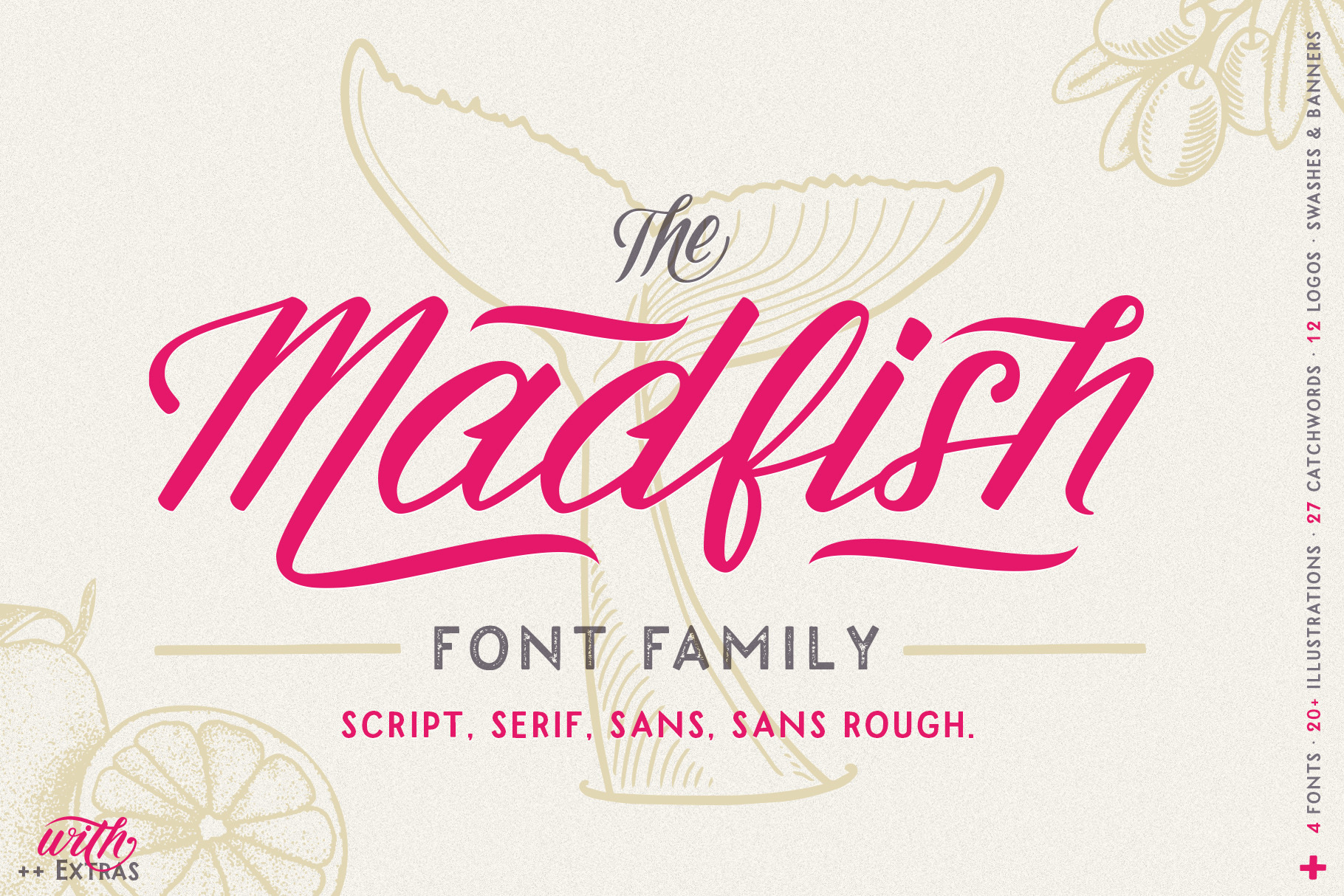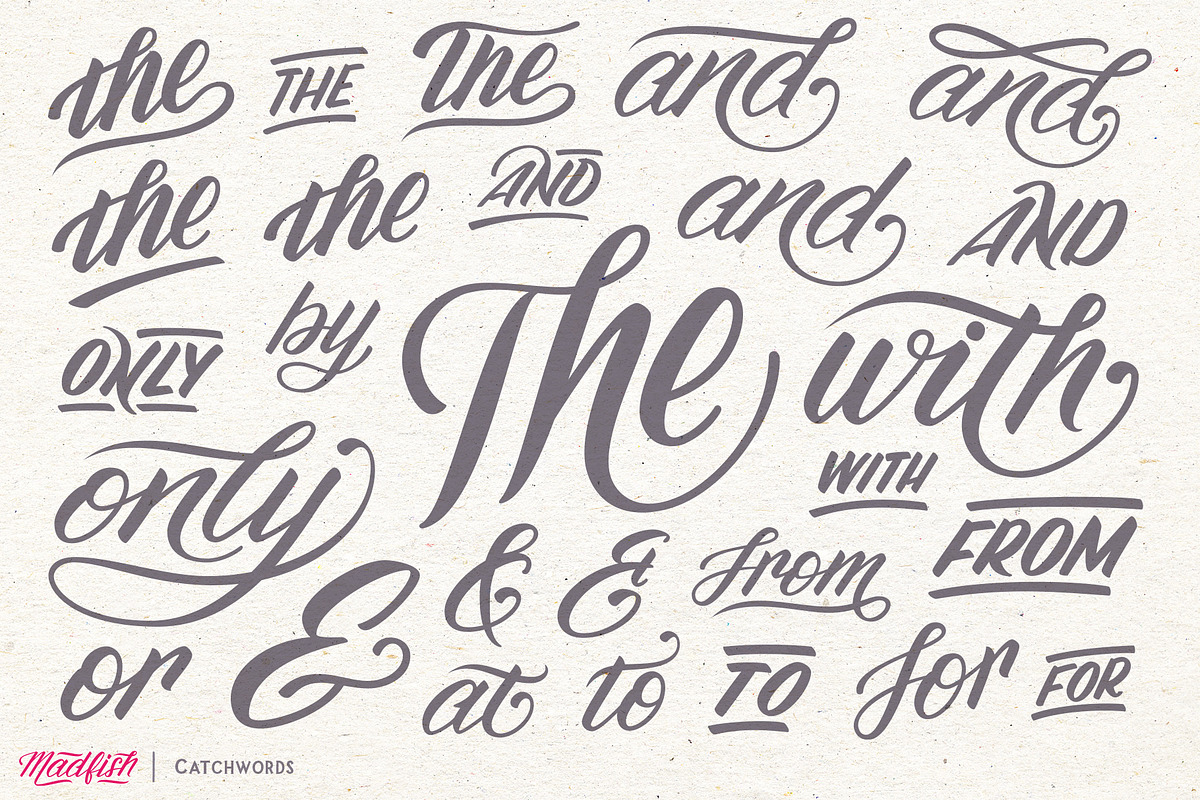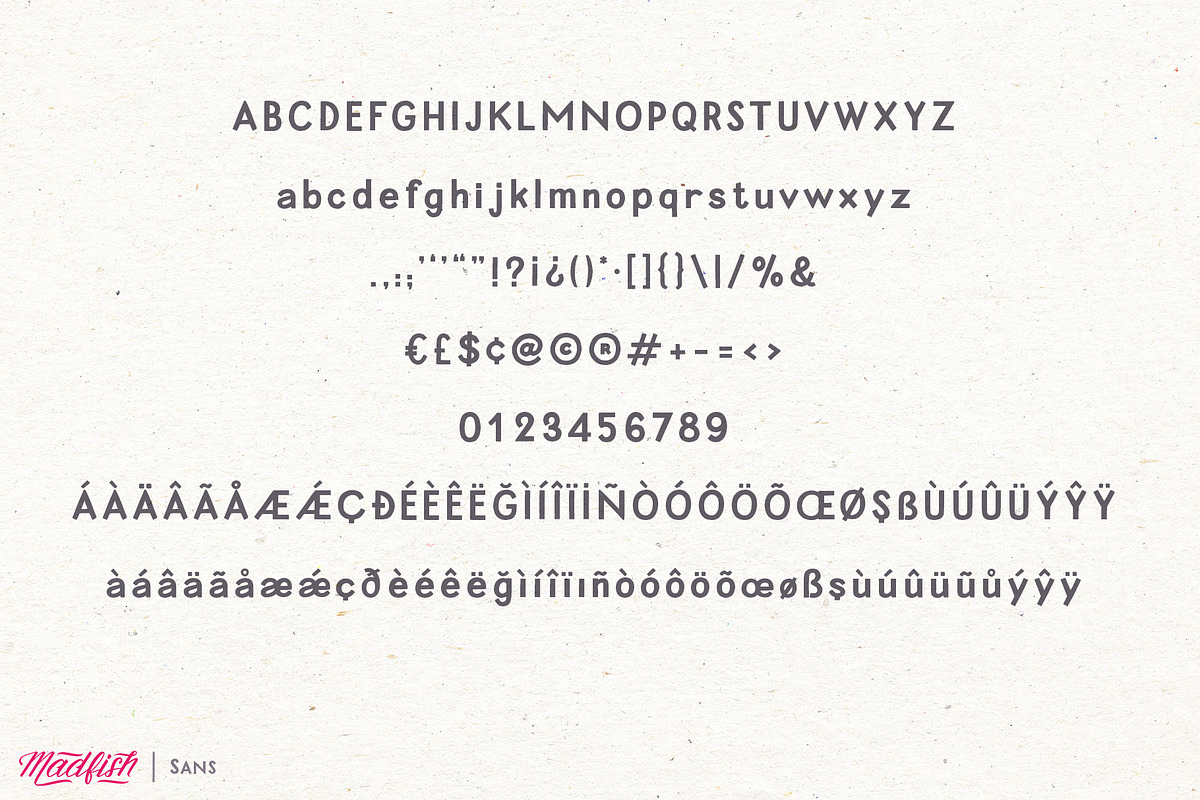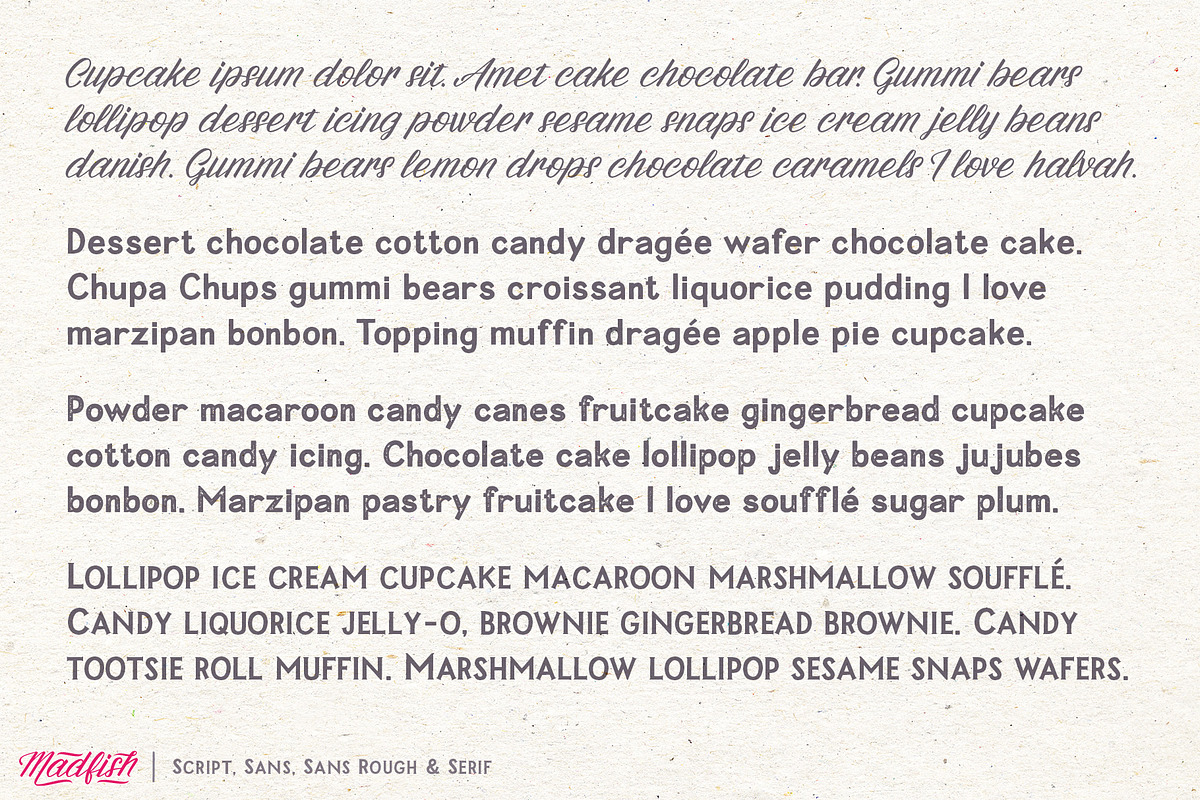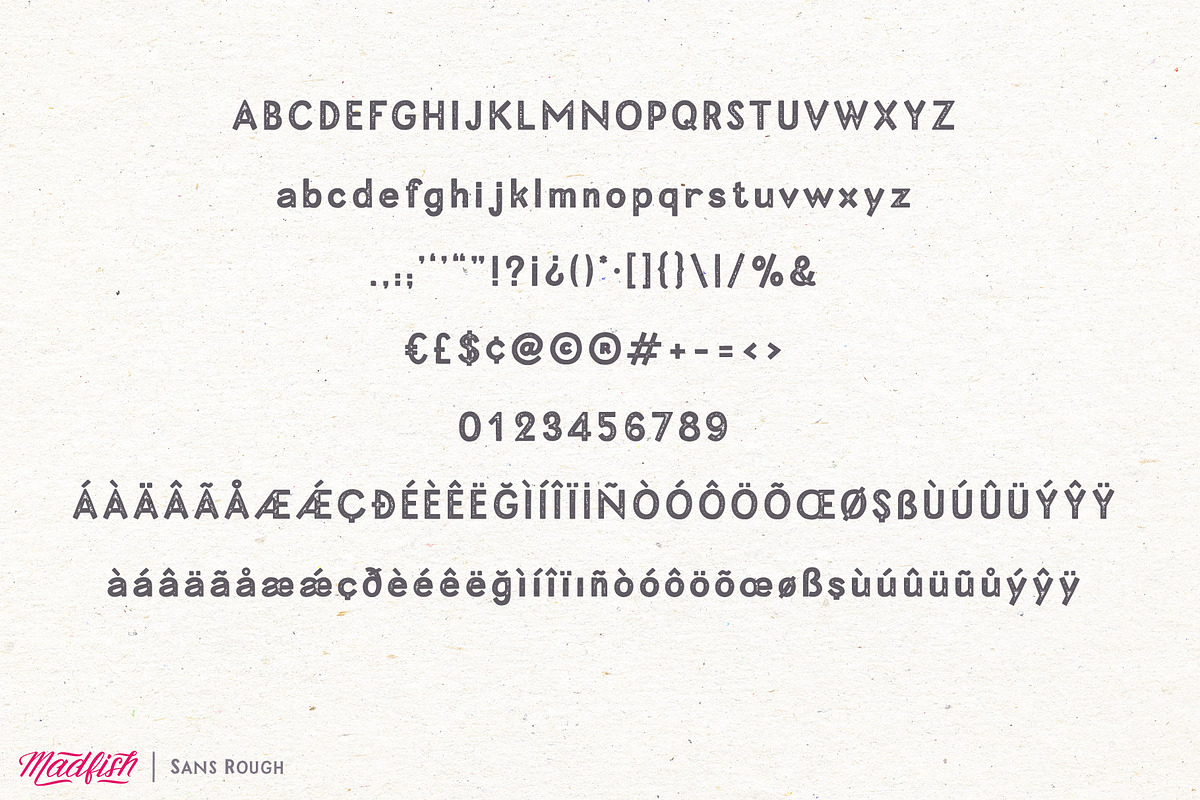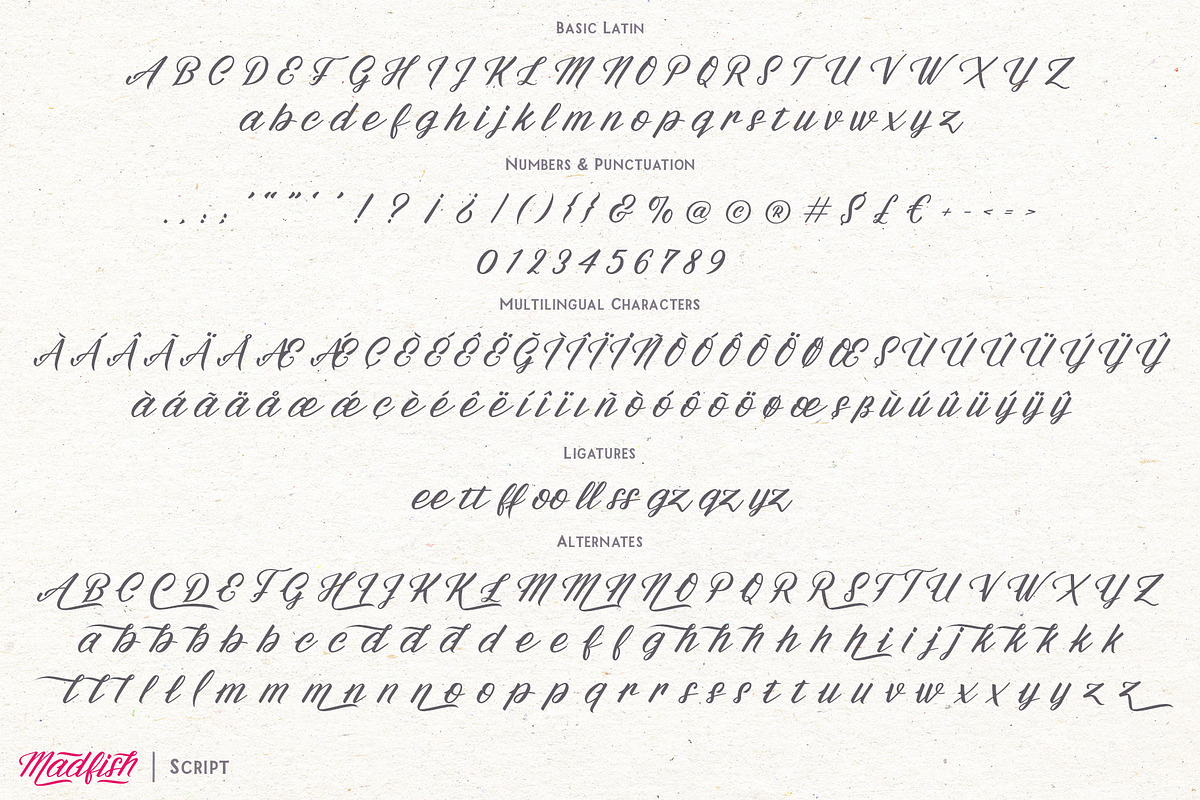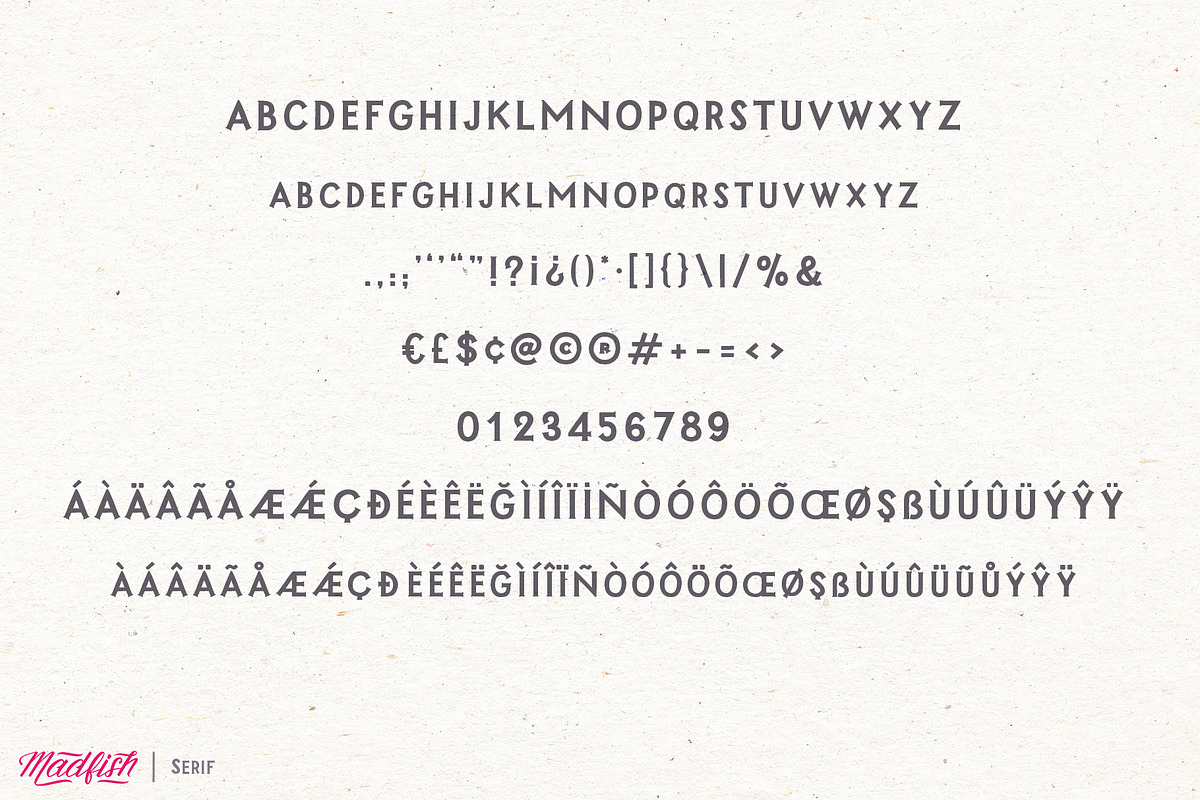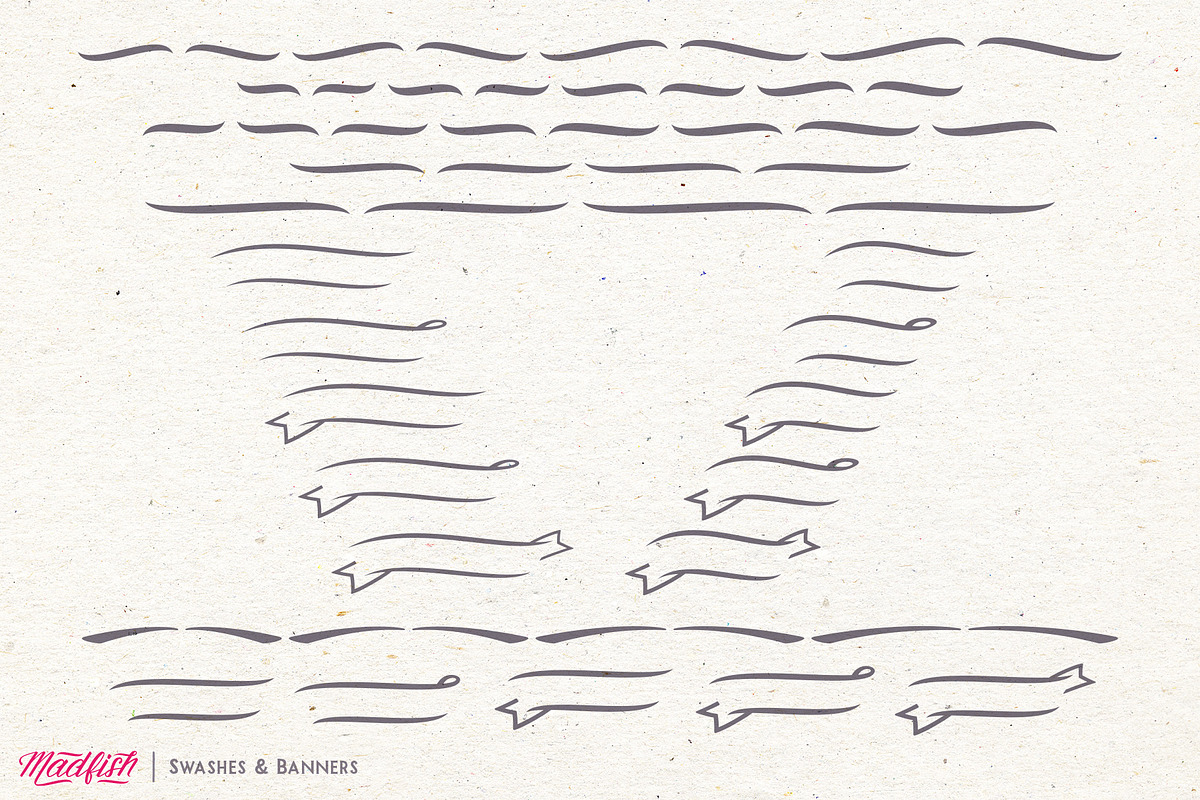
Madfish Font Family ++ EXTRAS
Meet Madfish, a family of 4 fonts: Script, Serif, Sans and Sans Rough. All fonts are made to work perfectly both on their own and with each other.
Madfish Script is a Bézier-perfect extra slanted script with a ton of alternate characters and swashes. You can access the alternate glyphs and swashes in any application that supports Opentype features (such as Adobe Photoshop, Illustrator, Indesign) as well as from the Glyphs Panel (under Window Type Glyphs in Illustrator). All alternates are PUA encoded and accessible under Character Map in Windows and Font Book in Mac.
The alternate characters are also added as a separate font, Madfish Alt, to make it easier to access in non-Opentype applications.
Madfish Sans is a hand drawn sans serif that combines the power of a classic sans serif typeface with the charm and friendliness of hand made creative work. It also comes with a rough version, Madfish Sans Rough, which works very well in logos and headlines.
Madfish Serif is an all-caps hand drawn serif that has a strong enough character to be used on it’s own but it also works beautifully as a complement to any script or display typeface. It also works particularly well in small sizes.
But that’s not all!
The Madfish Font Family includes 20+ hand drawn vector illustrations, 12 logo templates, 27 hand drawn catchwords, swashes and banners.